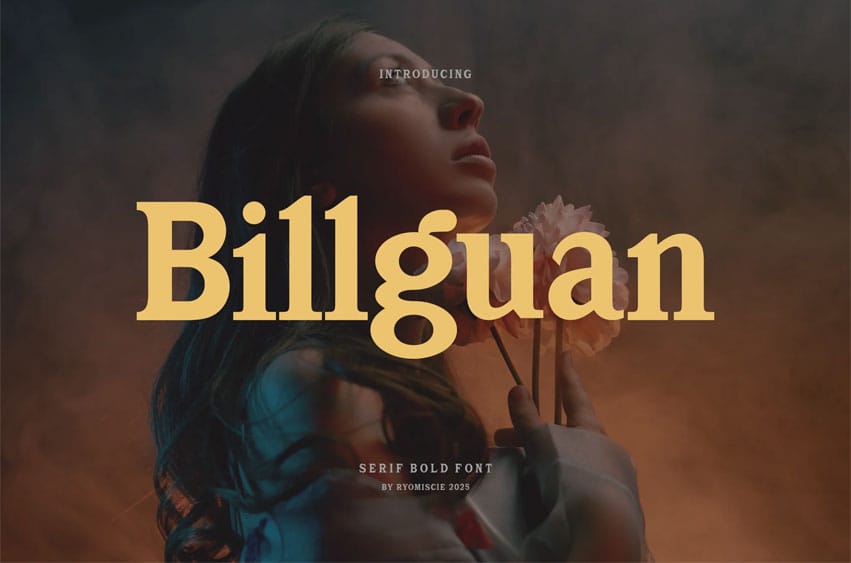
Billguan Font Modern Font is a bold and authentic display font. The font suits any branding project like logo, t-shirt printing, esport, and many more. outstanding in a wide range of contexts.